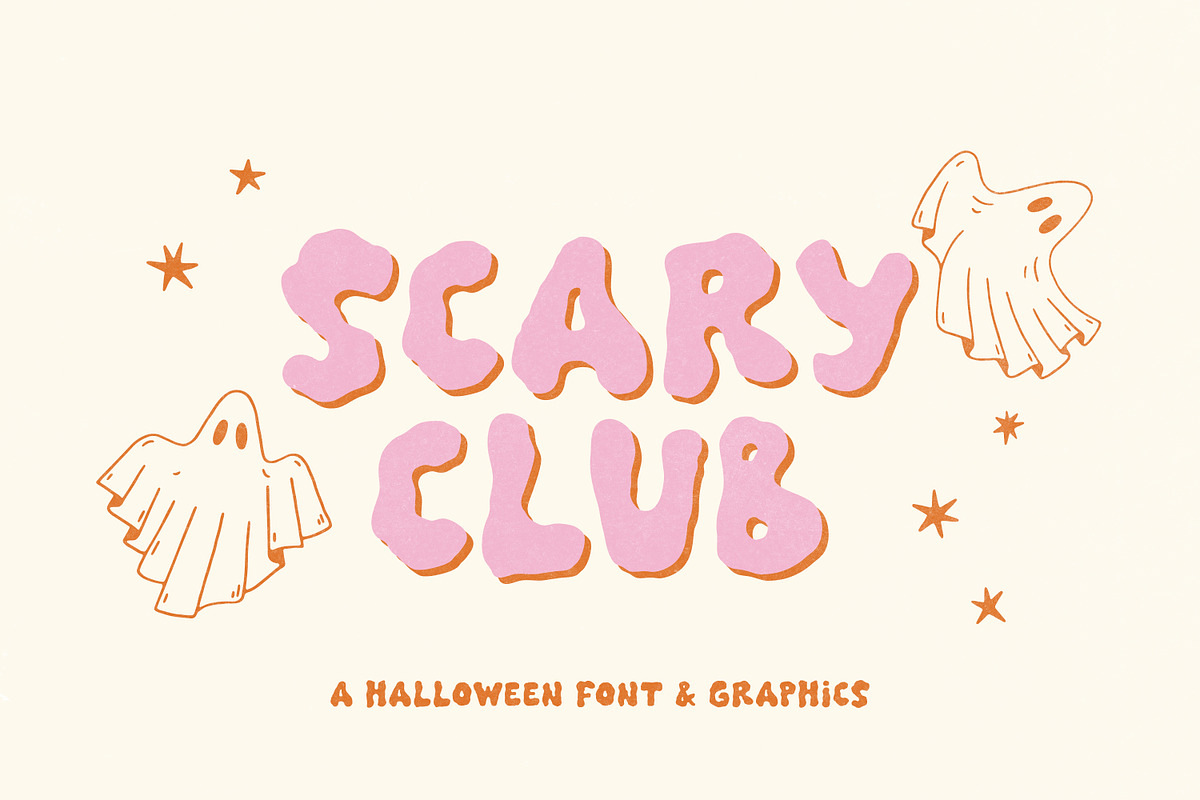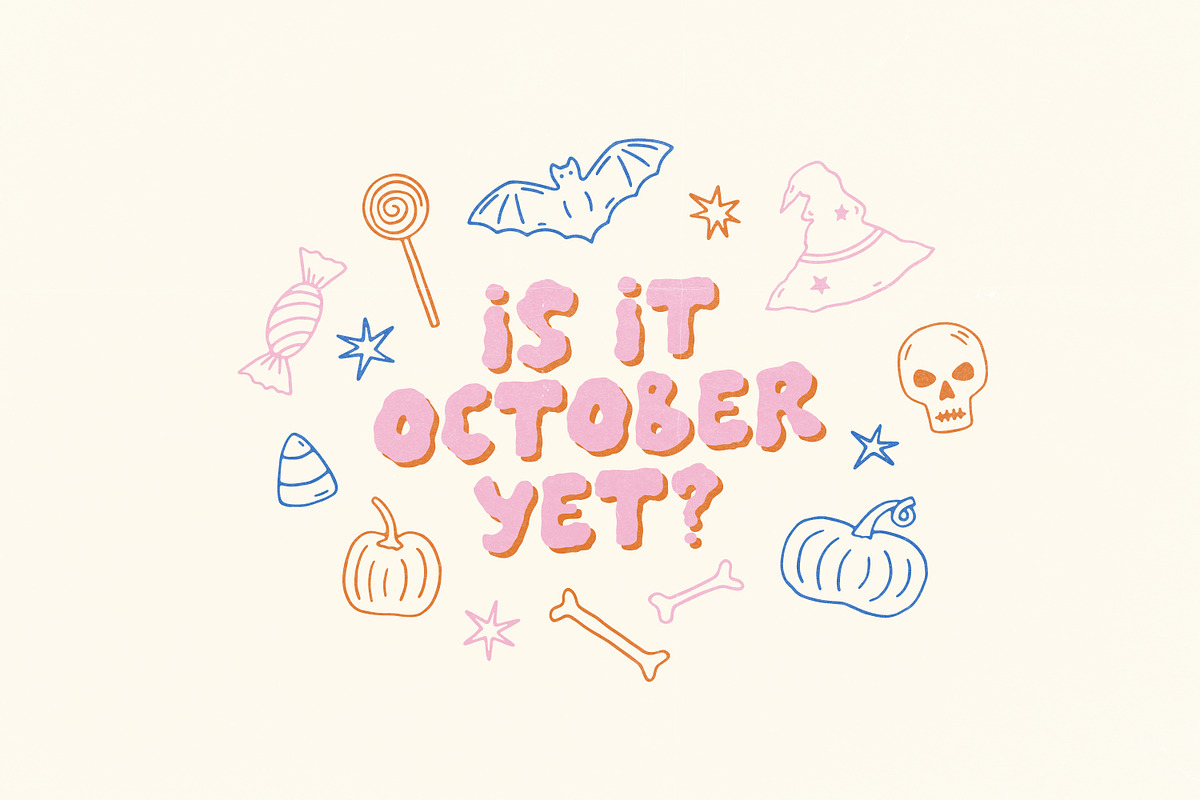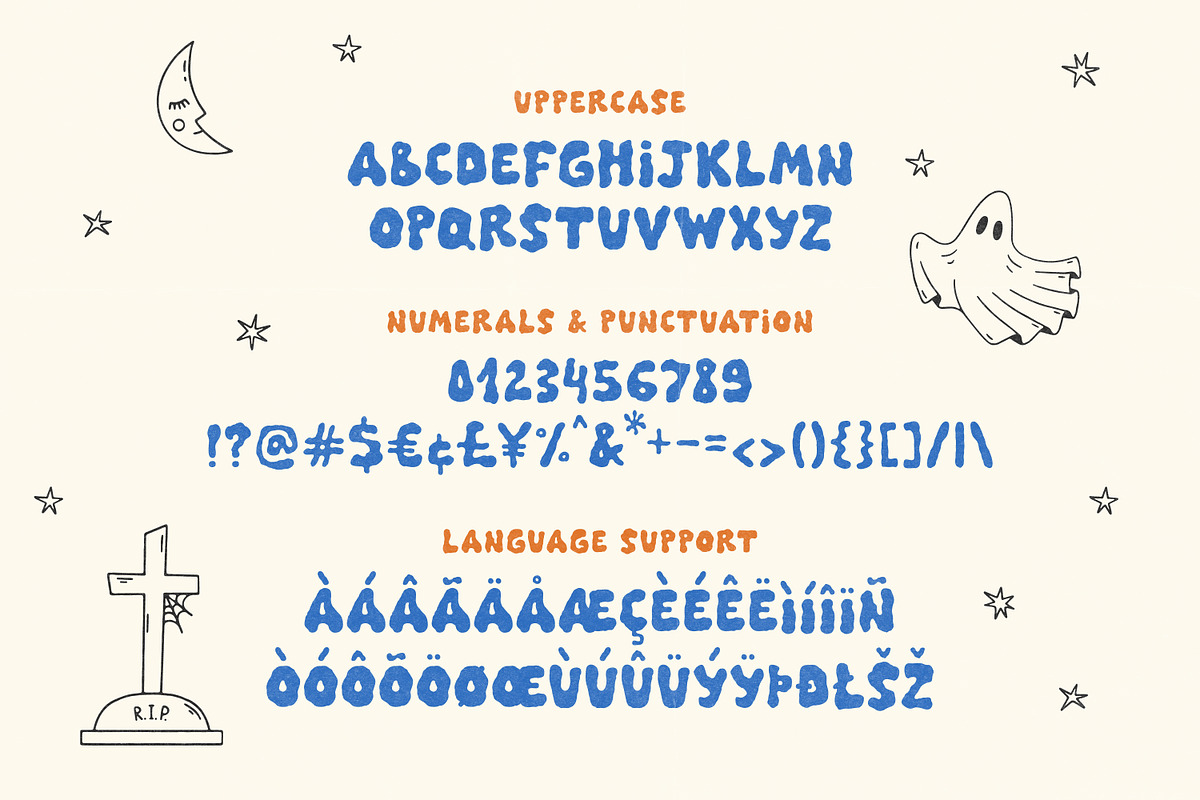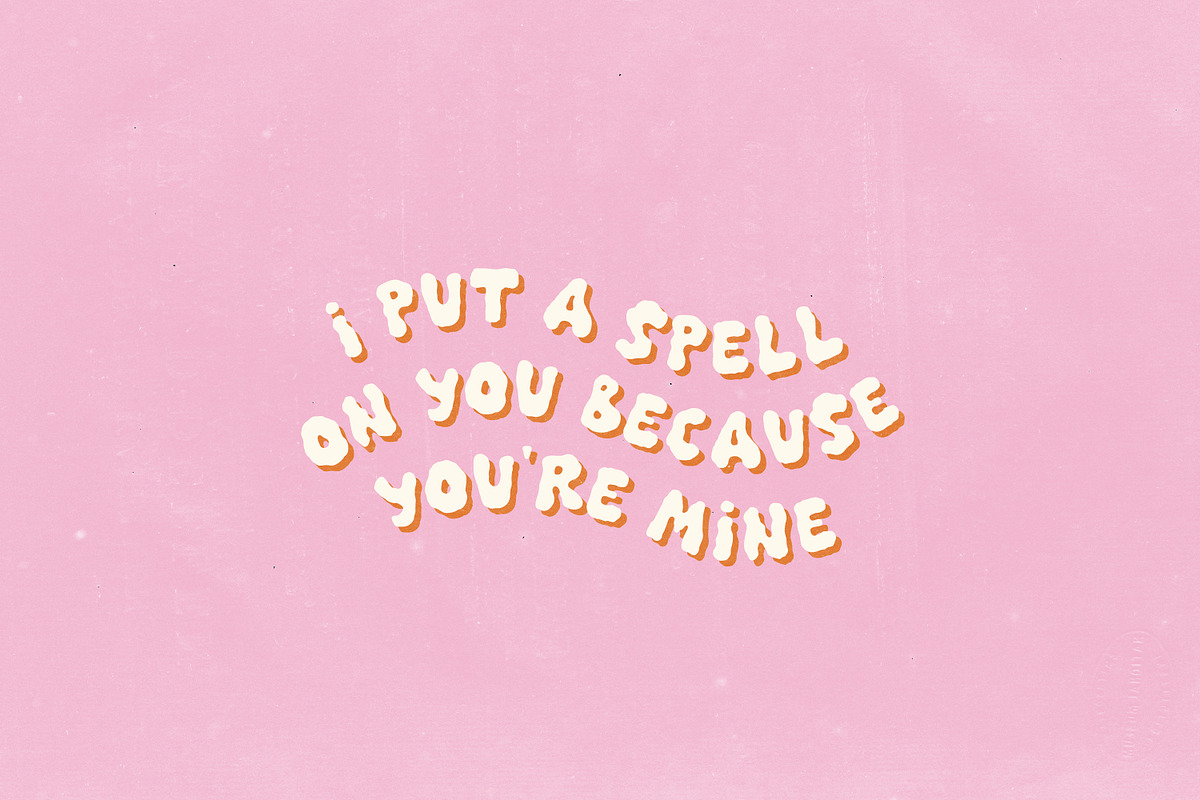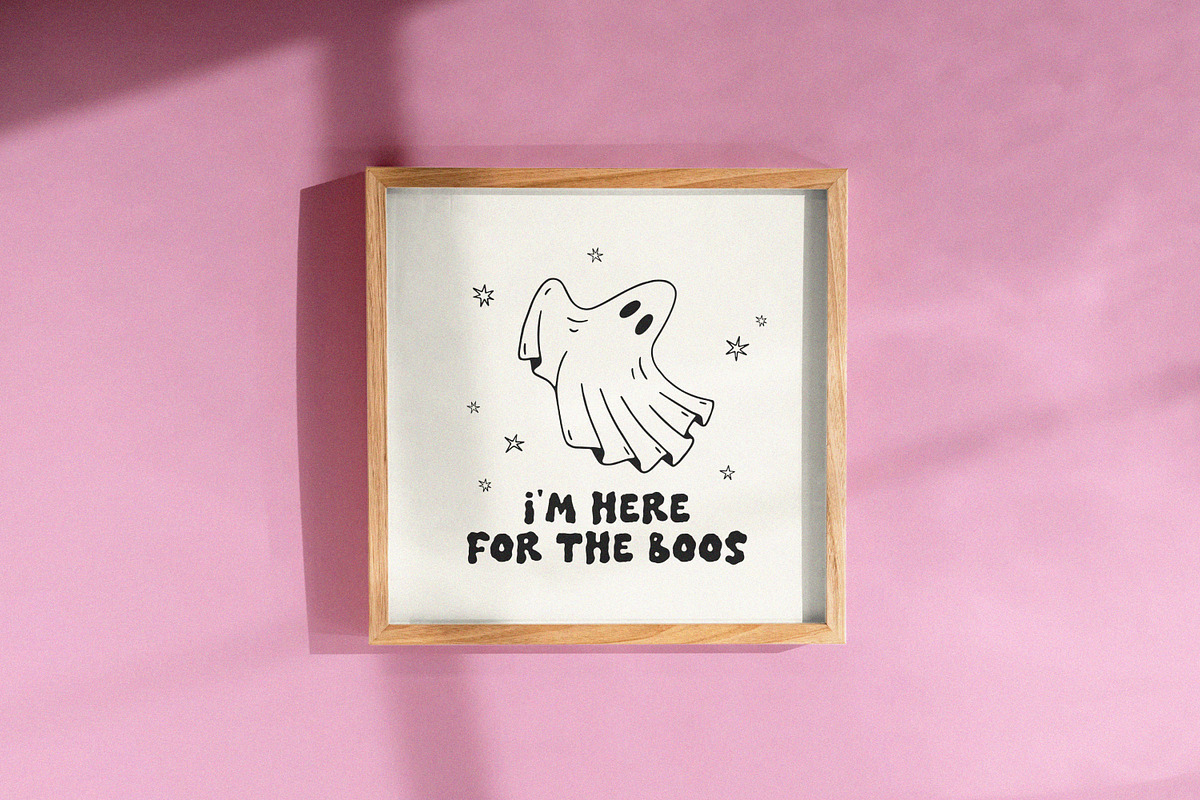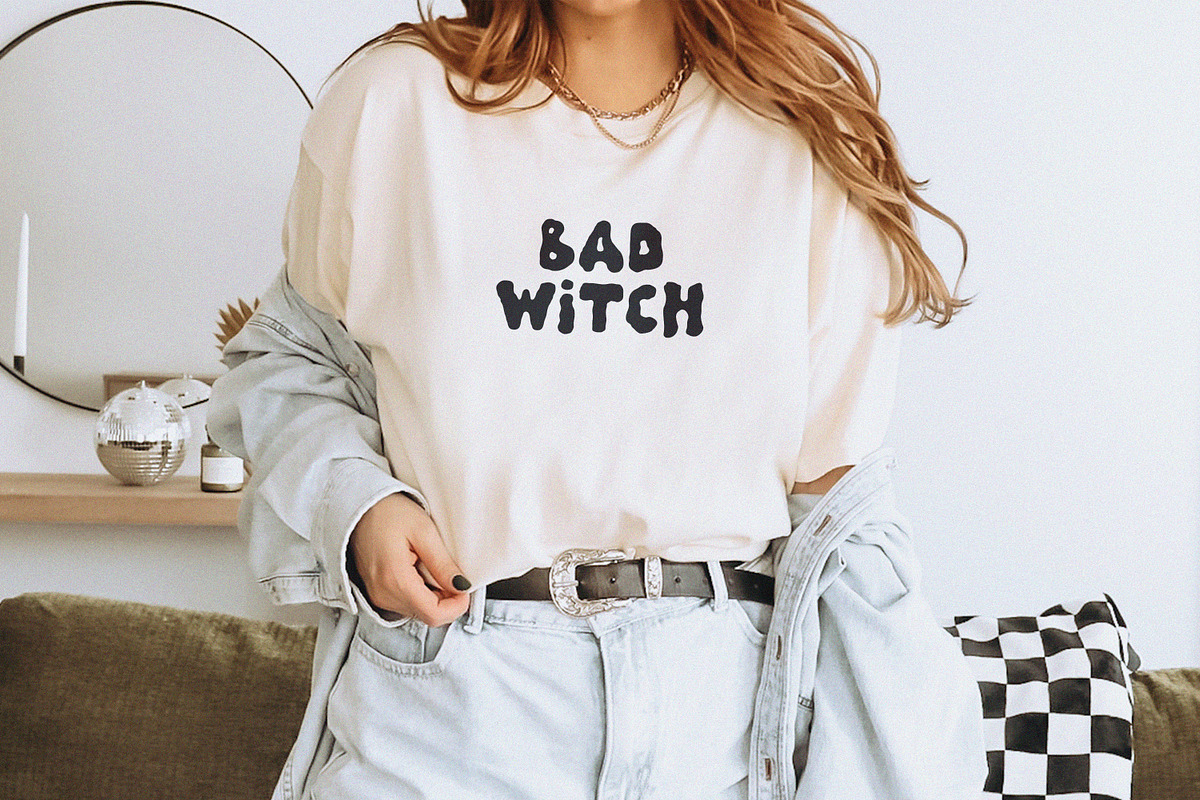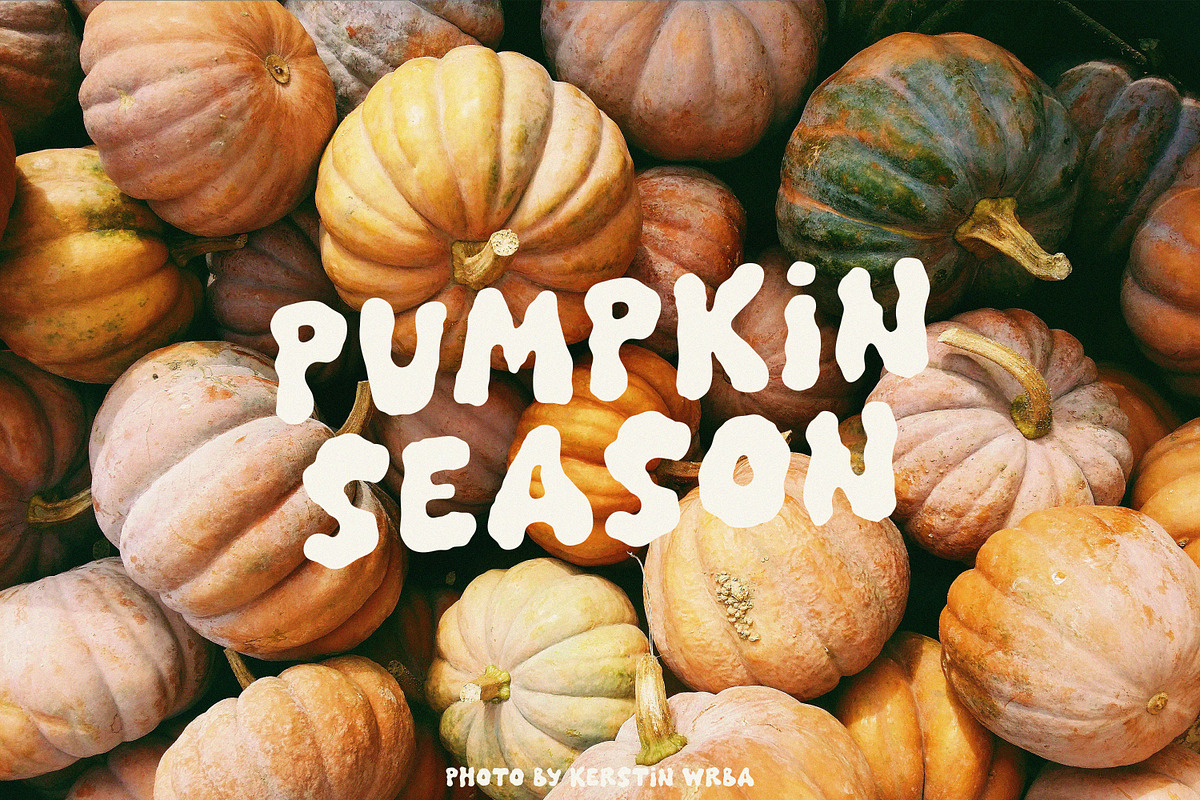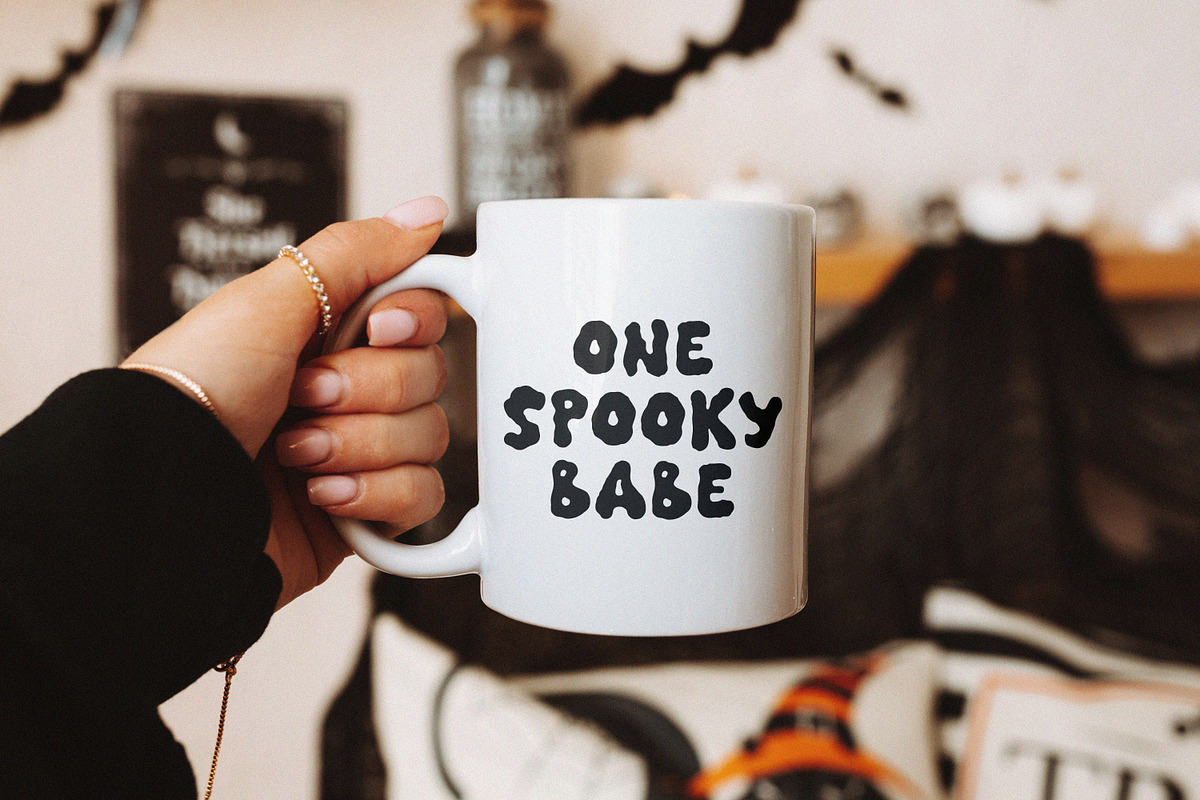
Scary Club - Halloween Font
It’s finally Halloween! Scary Club is a spooky Halloween font with cute line graphics.
Perfect for holiday designs, logos, branding, packaging, apparel, cards, posters, quotes, social media posts, stickers, and much more.